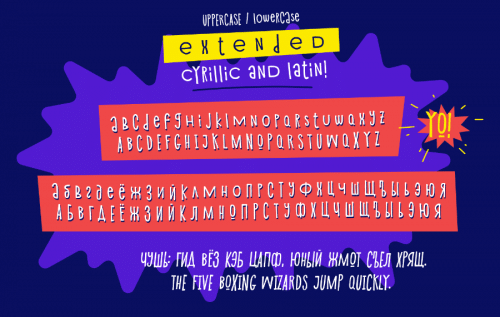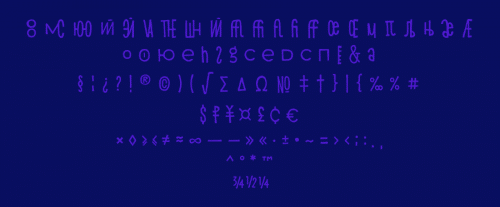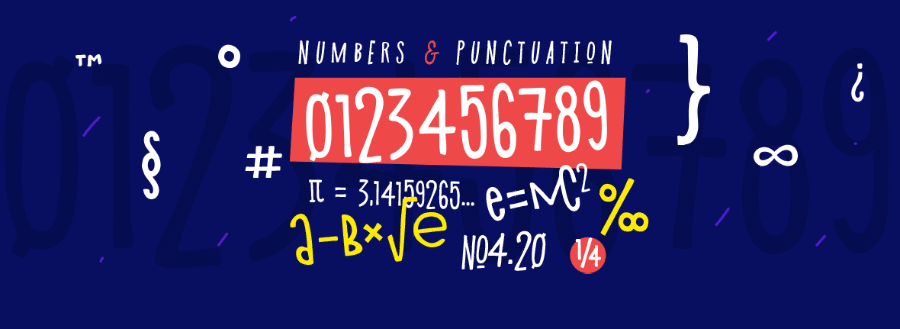
Shnobel Typeface
Start a new day with a fun and wild typeface. lntroducing Shnobel Typeface! This is a very emotional, mind-blowing, odd, wild, funny, extraordinary font! Shnobel is suitable for different design purposes! Perfect for logo marks, typographic quotes over photos, book covers and packaging design.